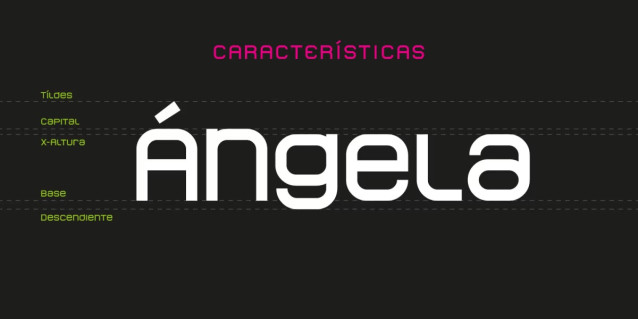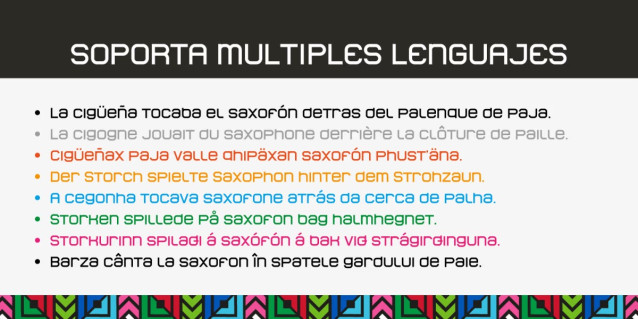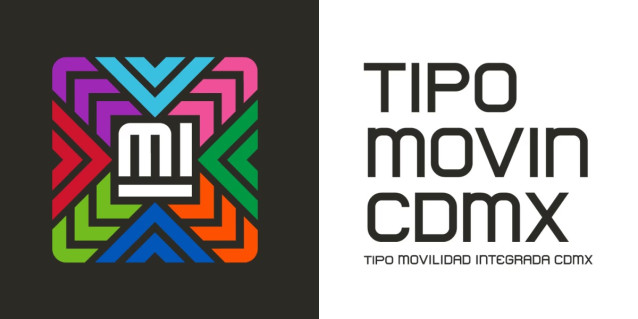
Tipo Movin CDMX Font
Tipo Movin CDMX Font: The typeface was developed from the original style of the Mexico City Metro System (STC Metro CDMX). The version proposed by SEMOVI (Secretariat of Mobility) is a narrower, more orthographic style, created to streamline the system’s typographic applications. It is officially used in all applications of the Mexico City Integrated Mobility System.
The typeface was created by Lance Wyman. In this edition, the lowercase fonts are an “UNOFFICIAL” adaptation for the Metro CDMX Font, enriching the typography with a visual style of uppercase and lowercase. Therefore, Lance Wyman’s original design is omitted as his own work. Additionally, some accentuation characters have been added, extending their use to other languages.
The fonts are an adaptation proposed by Ixipcalli in 2023 to emphasize only the use of lowercase characters; The user is free to use the original version in high resolution or the adapted version in low resolution.